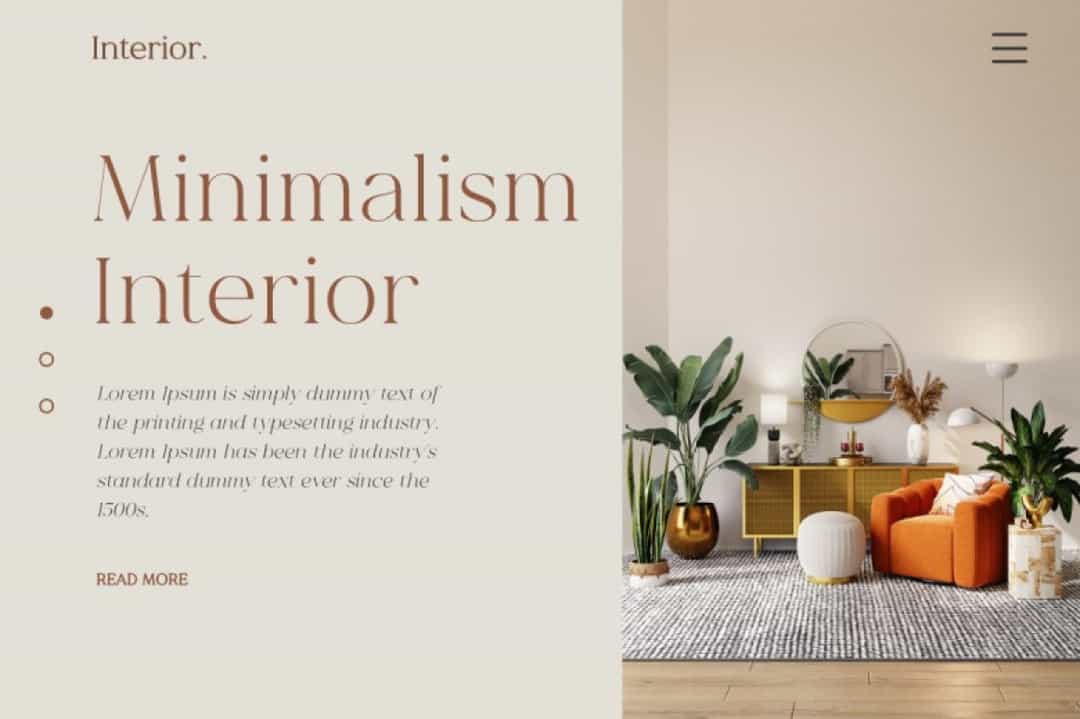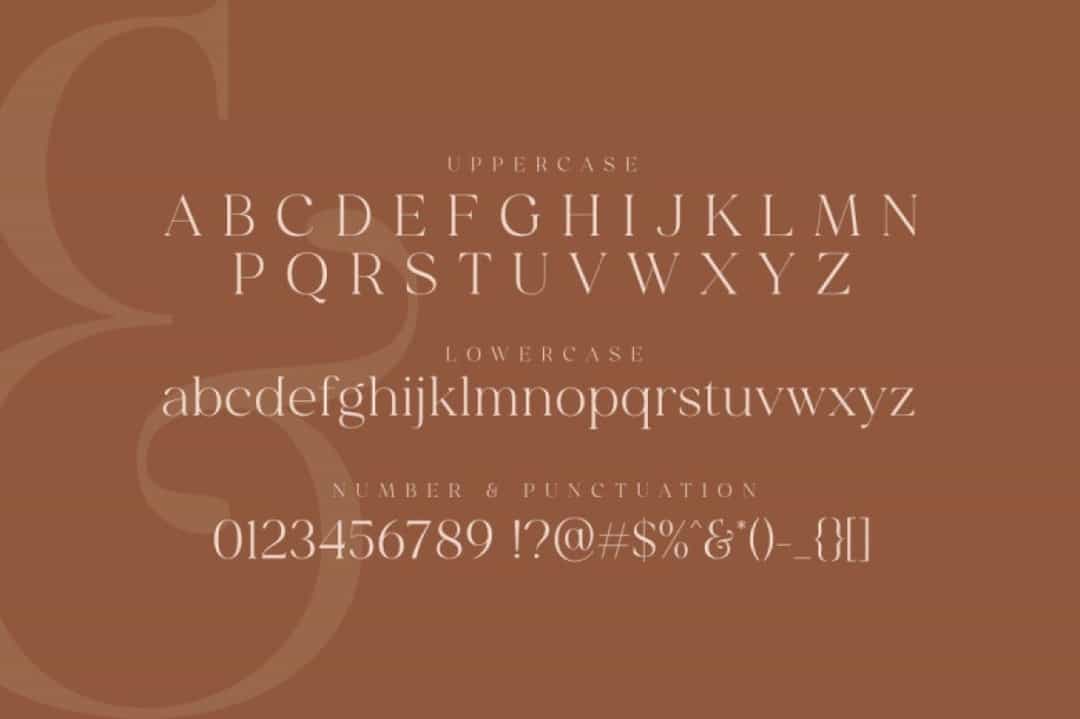
Milyuna is an elegant and fashionable serif typeface with high contrast. We created two different styles – Regular and Italic – suitable for various purposes like heading business cards, quotes or invitations.